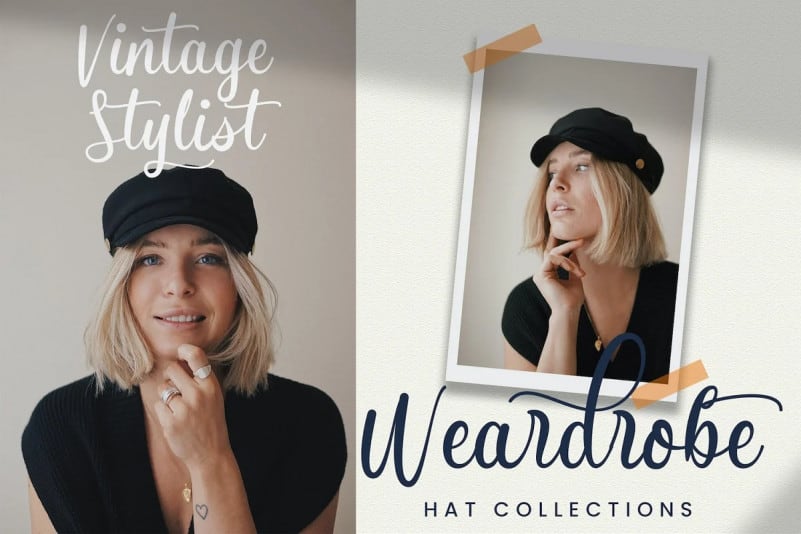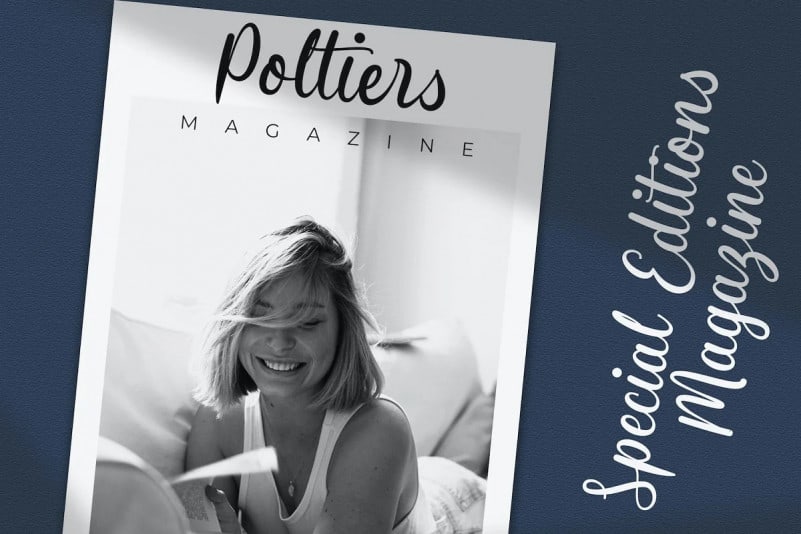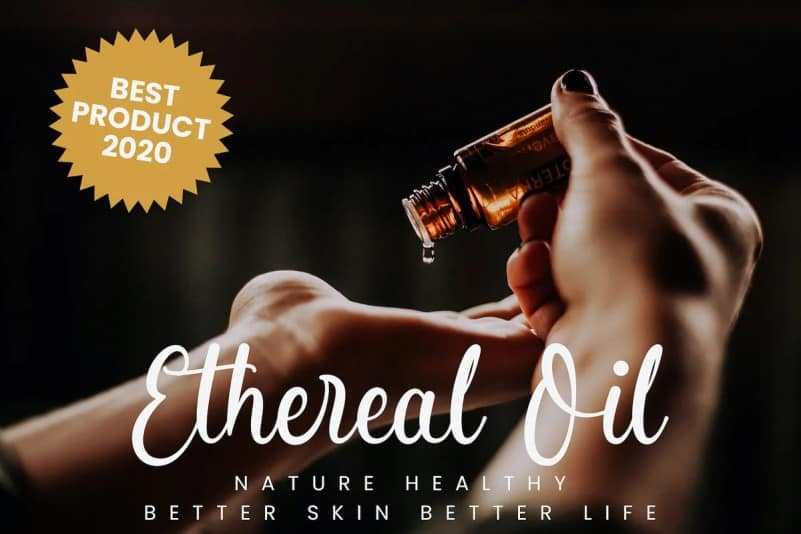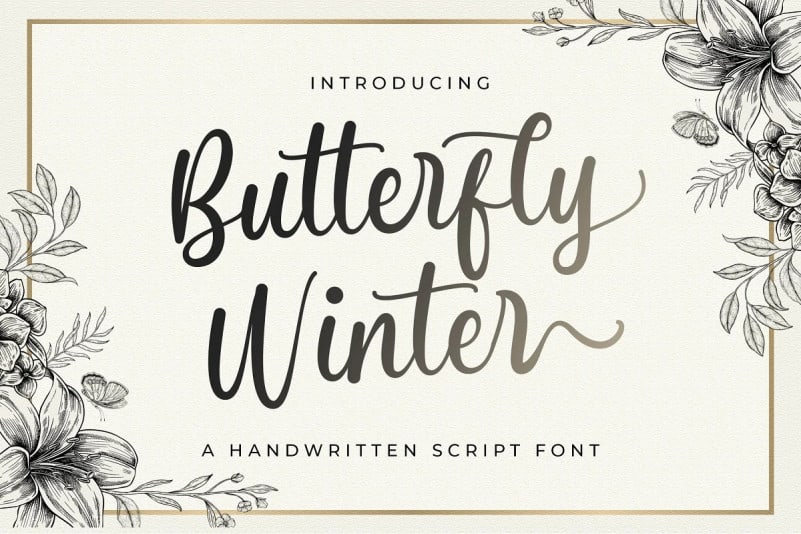
Butterfly Winter Script Font, designed by StringLabs is a bold script font, with a unique feature at the end of the stroke. It has beautiful and well balanced characters and as a result, it matches a wide pool of designs. Add it to your most creative ideas and notice how it makes them come alive!